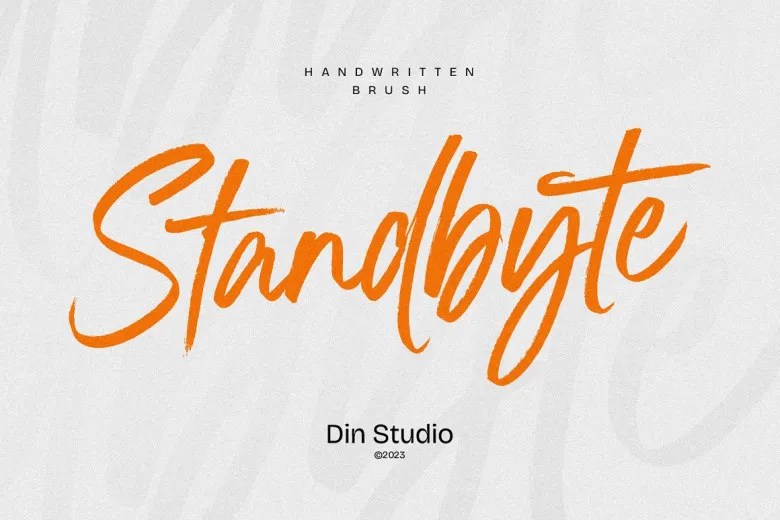
Standbyte Font
Standbyte is a captivating script brush font that beautifully captures the essence of cursive handwriting through its intricate brush strokes. With its fluid letterforms and elegant design, Standbyte evokes a sense of authenticity and warmth, making it perfect for projects that require a personal touch. The font’s subtle variations in stroke width, which are characteristic of natural brushwork, give it a handcrafted appearance that stands out.
Ideal for a variety of applications, Standbyte brings elegance and charm to logos, headlines, posters, invitations, and greeting cards. Its readability in various text sizes makes it versatile for both large and small-scale designs. Whether you’re working on branding materials, editorial layouts, websites, or print media, Standbyte enhances the aesthetic of any project with its graceful flow and distinctive character.
From elegant invitations to stylish flyers and sophisticated print materials, Standbyte is the perfect font for projects that demand a handwritten yet refined look. Its fluid strokes and charming letterforms create a unique visual experience, adding a personal and artistic touch to every design.